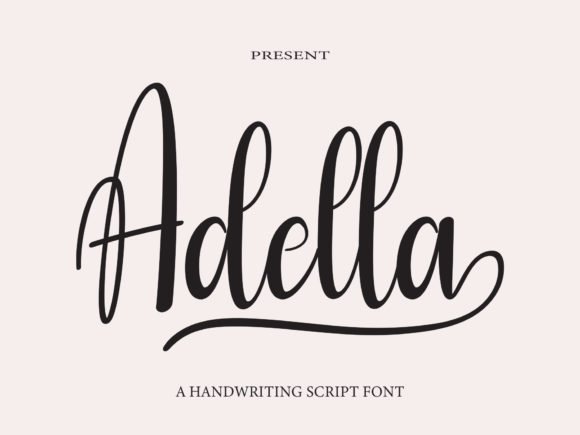
Unleashing Whimsy with Adella Font
Have you ever found yourself lost in the creative process, pouring over sketches and ideas until the perfect concept finally takes shape? That’s exactly what happened when designers stumbled upon Adella Font – a delicate handwritten font that brings a touch of joy to any project. With its lovely flow and elegant lines, Adella Font is the perfect companion for writing quotes, titles, brand names, and book covers.
As a valuable addition to any designer’s toolkit, Adella Font offers a unique way to add personality to your creations. Whether you’re working on a poster, a book cover, or a brand identity, this font is sure to bring a smile to your face and a touch of whimsy to your design.
- Unique Characteristics: Adella Font features a distinctive, elegant script design with a mix of modern and traditional elements, making it perfect for formal and creative projects.
Adella Font Review
Overall, I’m quite impressed with Adella Font, but it has its limitations. Let’s dive in!
- ✨ Elegant and refined design that screams sophistication. The font is perfect for high-end branding and corporate communications.
- ✨ Adella Font is highly legible, making it an excellent choice for body text and long-form content.
- ✨ The font’s versatility allows it to work well in both digital and print media.
- ⚠️ Limited font sizes: Adella Font may not be the best choice for extremely small or large font sizes, as it can become difficult to read.
- ⚠️ Not ideal for informal or playful content: The font’s refined design may not be the best fit for casual or humorous writing.
Overall, Adella Font is a solid choice for designers looking for a sophisticated and elegant font. While it may have some limitations, its strengths make it a great addition to any design project. With proper use, Adella Font can elevate your design to new heights.
Getting the Most Out of Adella Font
For optimal results, use Adella Font for body text and headings to create a cohesive and modern look. Experiment with different font sizes and styles to add emphasis and visual interest.
Adella Font is suitable for:
- Modern branding and logos
- Business presentations and reports
- Digital marketing materials and social media graphics
Alternatives to Adella Font
Merriweather is a classic serif font suitable for body text and editorial content. It has a traditional look and feel that works well for print and digital media. When to use: For projects that require a timeless and elegant appearance, such as books, magazines, and websites with a vintage feel.
Comparison to Adella Font: While both fonts have a serif style, Merriweather has a more traditional and formal look, whereas Adella Font has a more modern and clean appearance.
Lato is a sans-serif font that works well for headings, titles, and body text. It has a modern and clean design that is suitable for digital media and web applications. When to use: For projects that require a modern and minimalist appearance, such as websites, apps, and digital products.
Comparison to Adella Font: Lato has a more modern and sleek appearance compared to Adella Font, which has a more classic and elegant look.